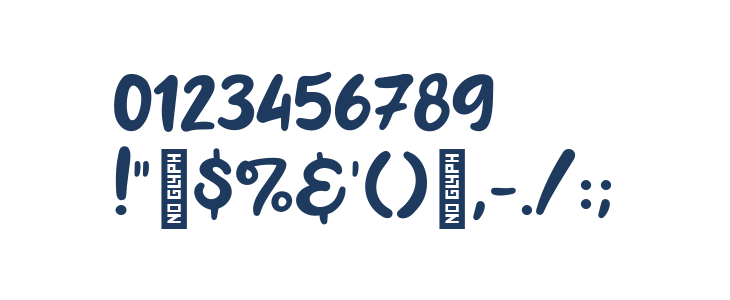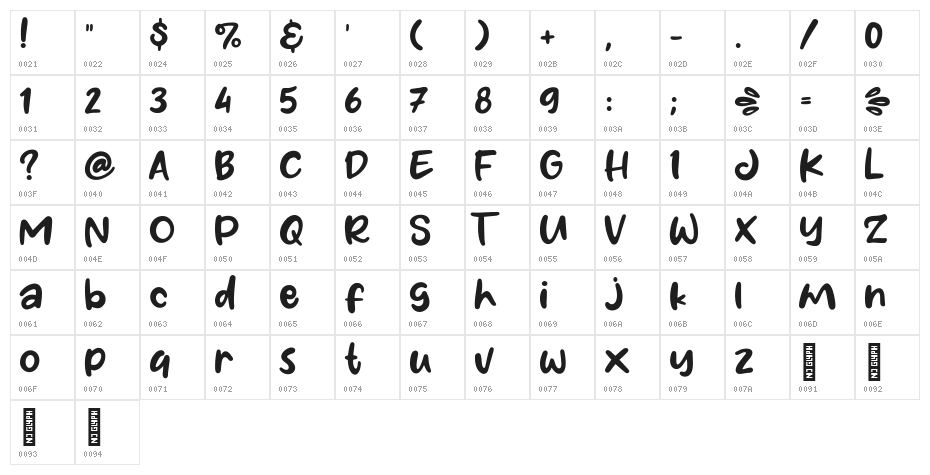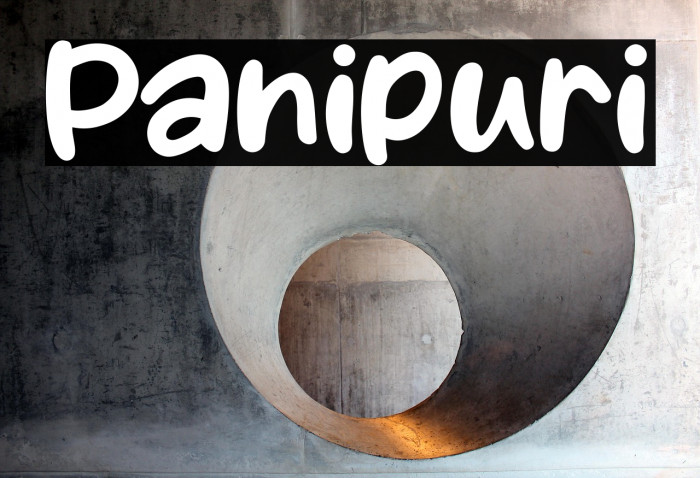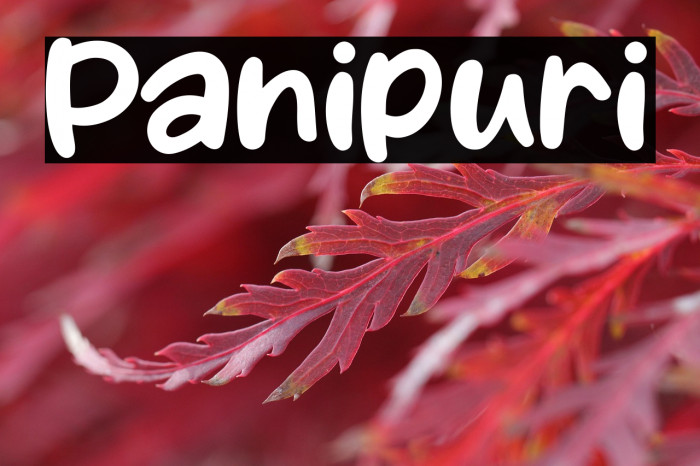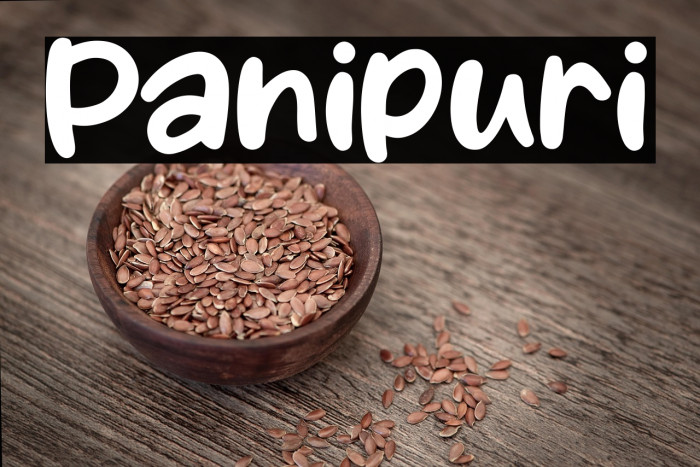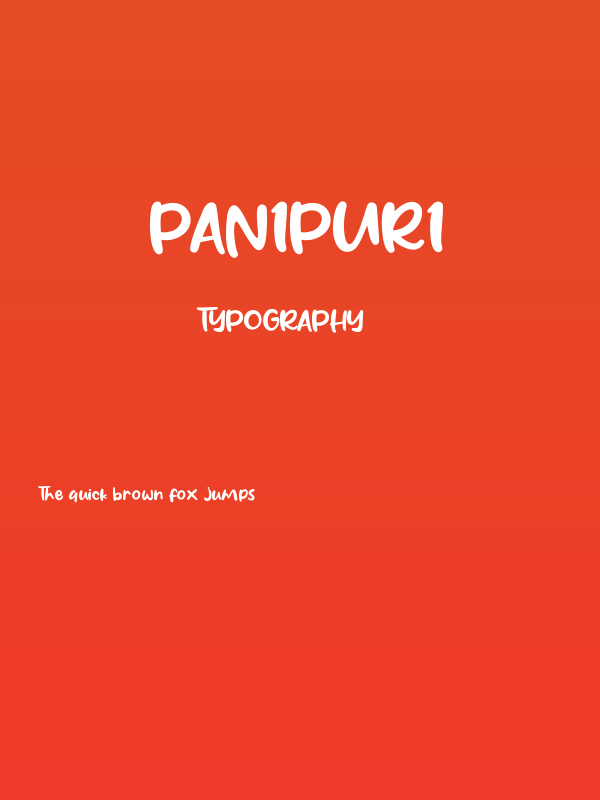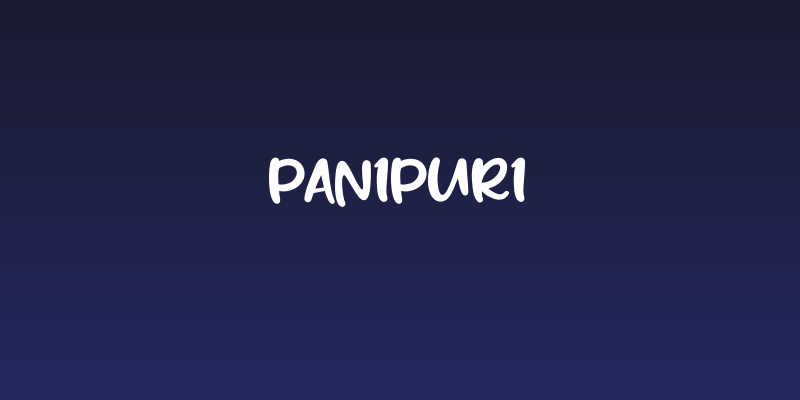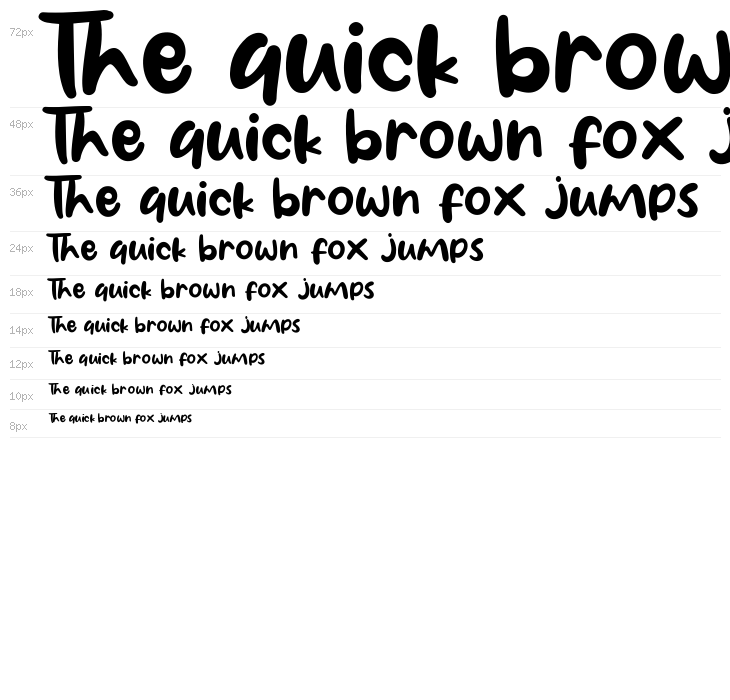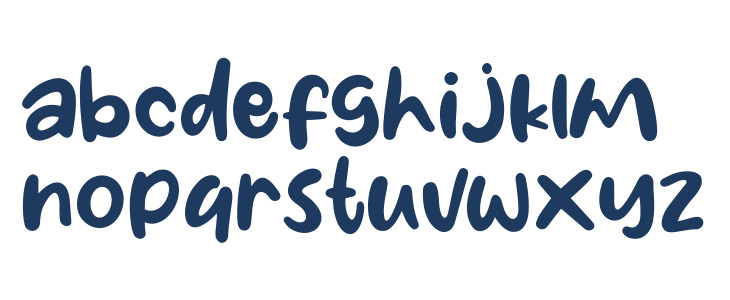
Panipuri Font
Panipuri Description
This playful and energetic font features bold, rounded strokes with a handwritten style. The characters are slightly irregular, giving a casual and friendly appearance. The uppercase letters are bold and prominent, while the lowercase letters maintain a consistent flow with a slightly smaller size. Numbers and special characters follow the same rounded and bold style, ensuring uniformity across all glyphs. The font's informal and approachable design makes it suitable for projects that require a personal touch.
| Proposed Projects | Ideal for children's books, playful branding, casual invitations, and social media graphics. |